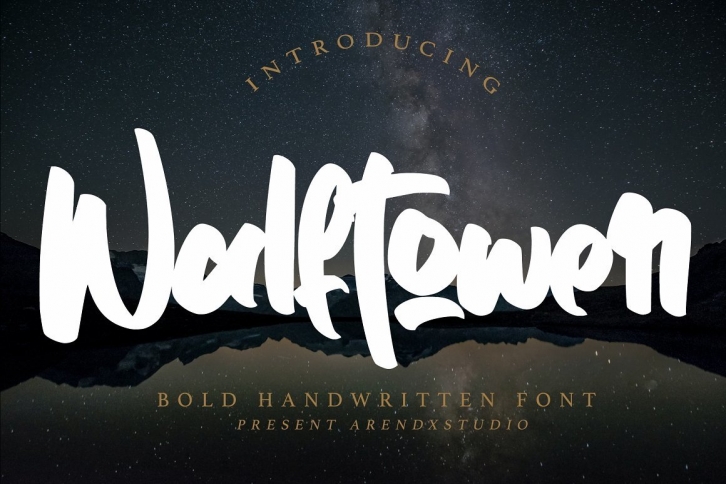
Walftower - Bold Handwritten Font Download
Walftower is a trendy and unique font with an authentic style. It was designed by Arendxstudio and it's a great choice for creative people who need such a font. It was released on January 9, 2021 and the file size is 9.66 MB. Walftower will add an organic vibe to any design idea!